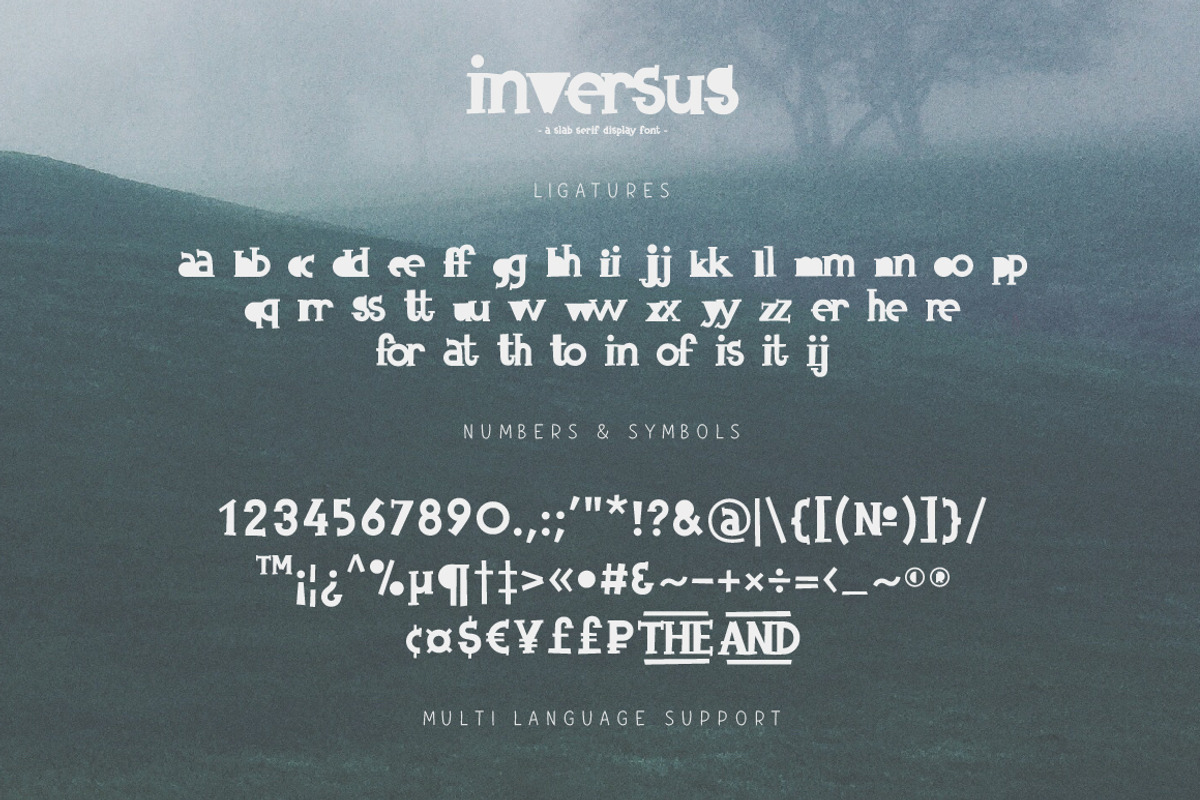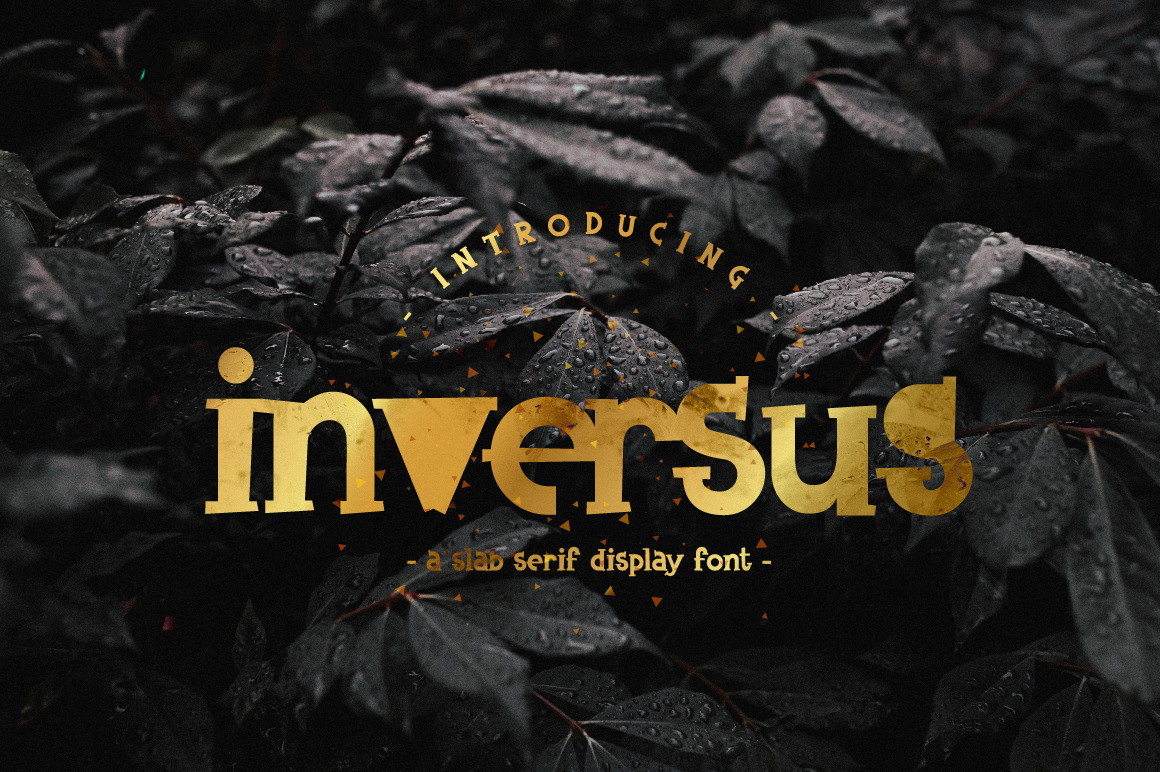
Inversus – a slab serif display font
Perfect for logo, quotes, poster, branding projects, product packaging, t-shirt, book cover, greeting cards and applicable for any graphic design.
Inversus contains a full set of lower & uppercase letters, alternate letters, a large range of punctuation, numerals, ligatures, cyrillic characters and multilingual support.